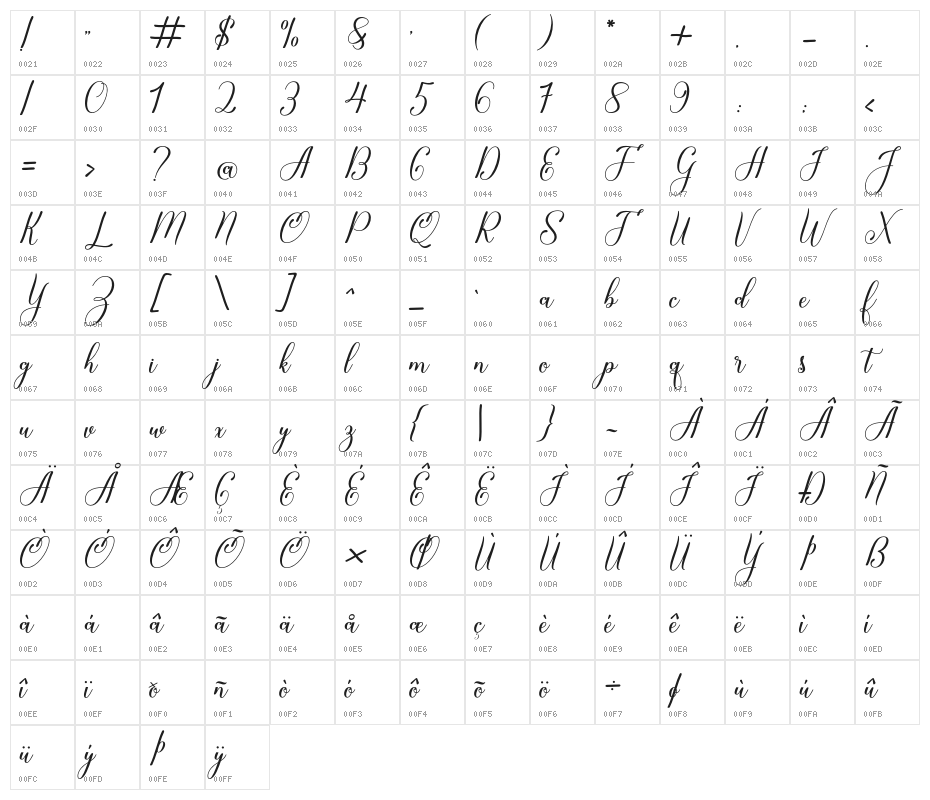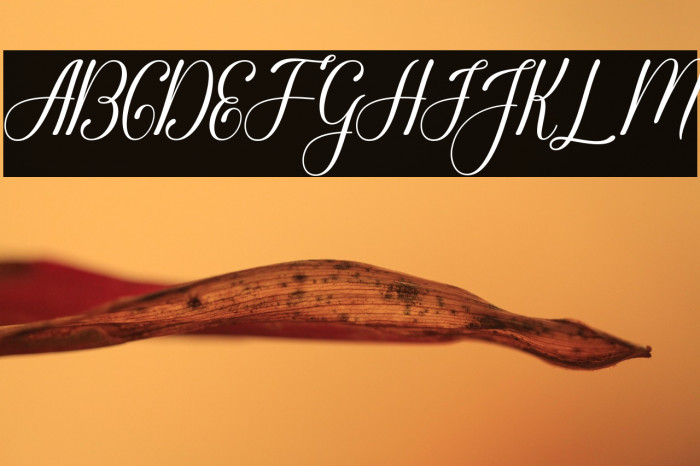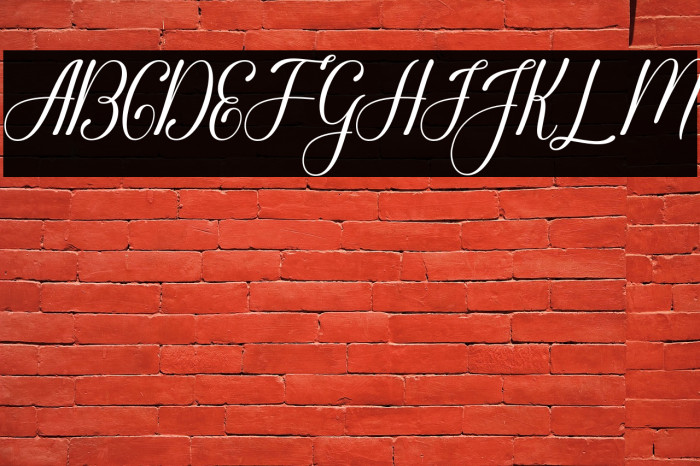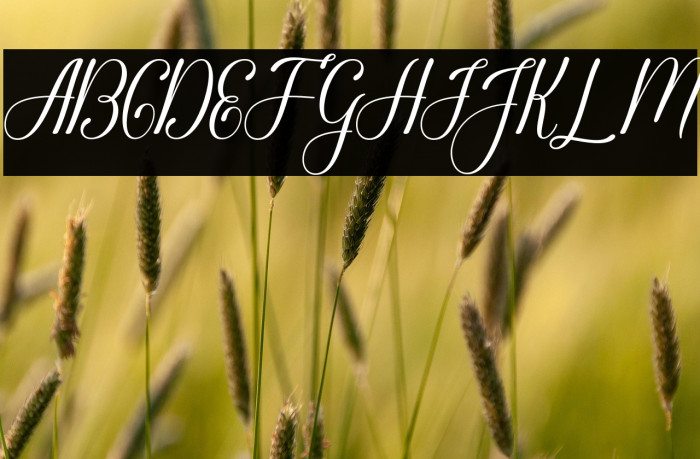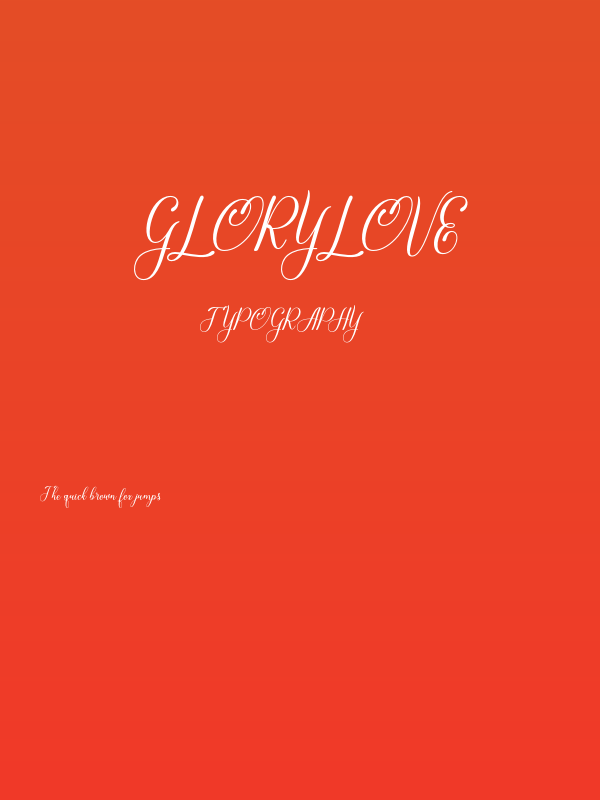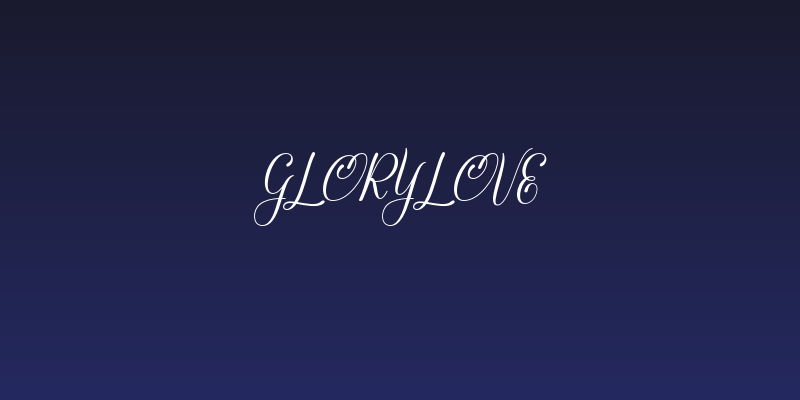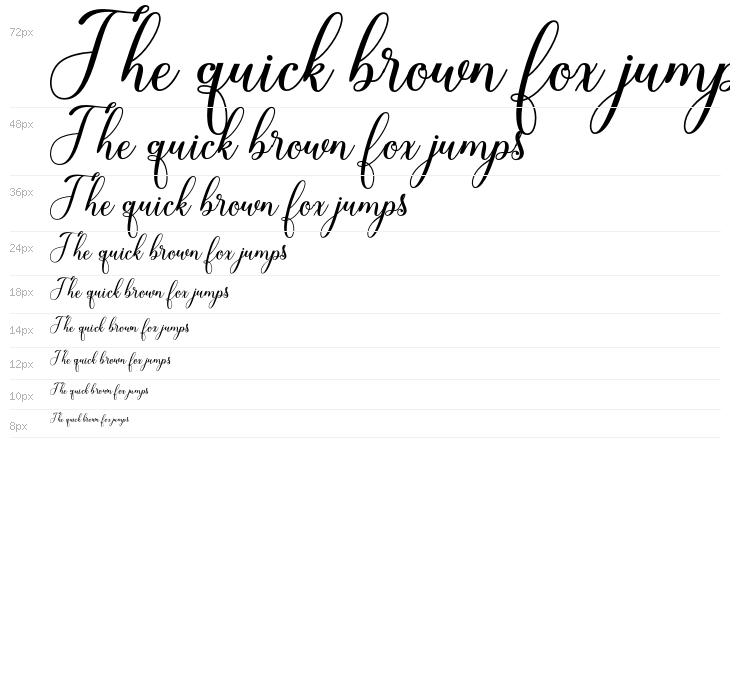
Glorylove Font
Glorylove Description
This elegant script font features flowing, cursive letters with a refined and sophisticated appearance. The uppercase letters are characterized by their graceful loops and swirls, creating a sense of movement and fluidity. The lowercase letters maintain a consistent style, with smooth connections between each character, enhancing the font's readability. The numerals are designed with a similar flair, incorporating subtle curves that align with the overall aesthetic. Special characters are thoughtfully integrated, ensuring they complement the font's style. This font exudes a sense of elegance and charm, making it suitable for a variety of creative applications.
Overall StyleElegant
Use CaseLogos, Invitations, Decorative text
Proposed ProjectsIdeal for wedding invitations, greeting cards, branding, and elegant packaging.